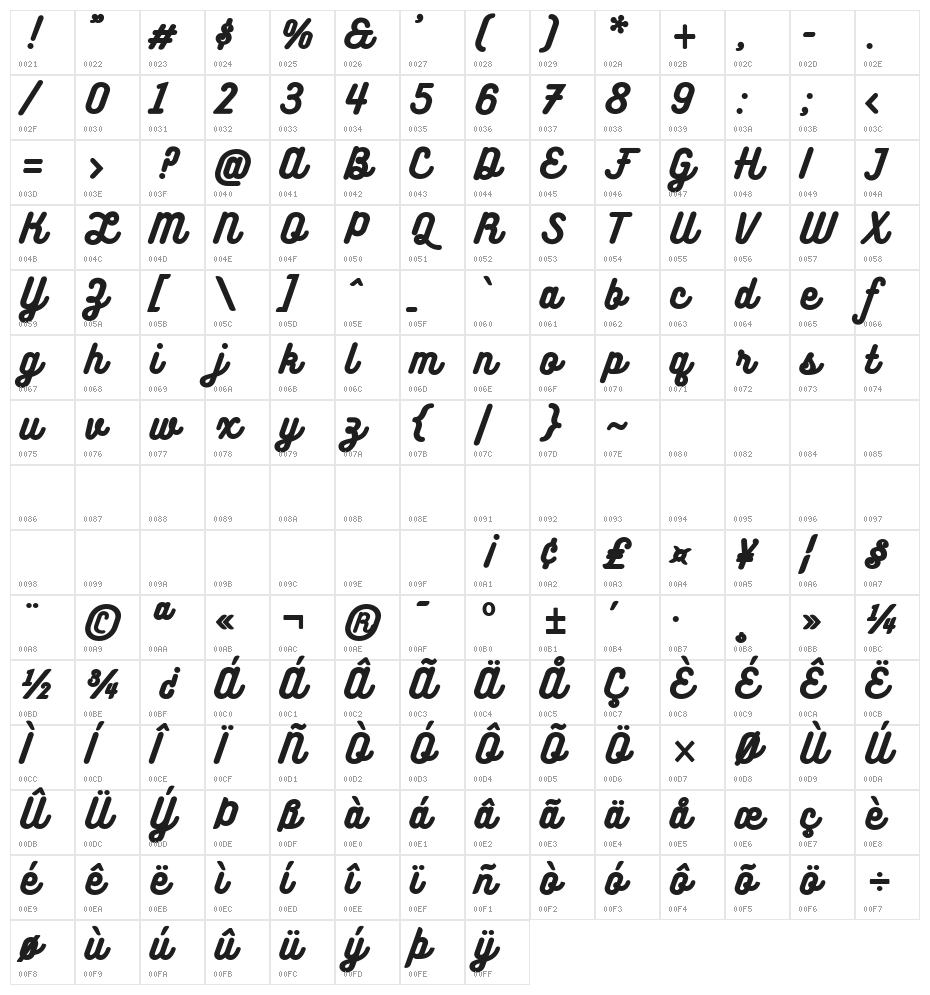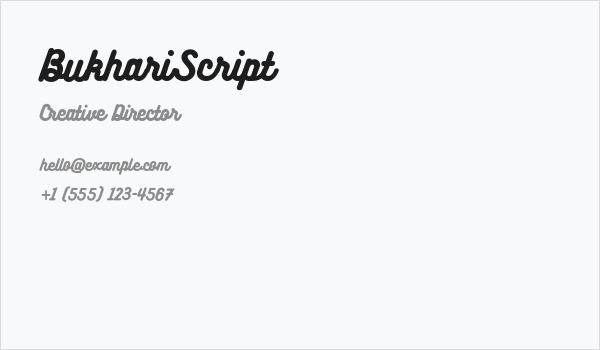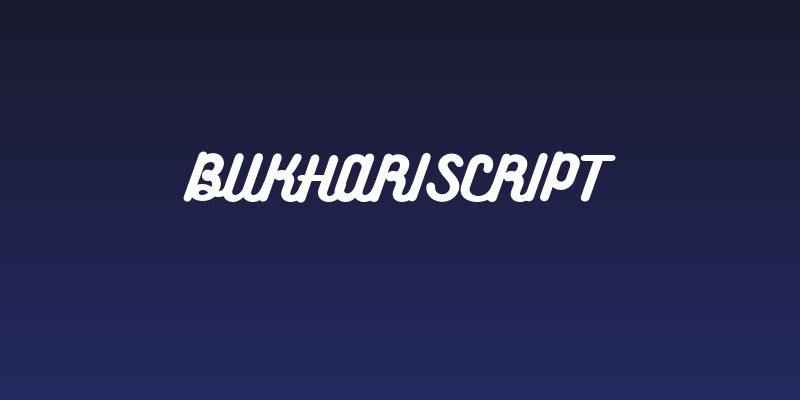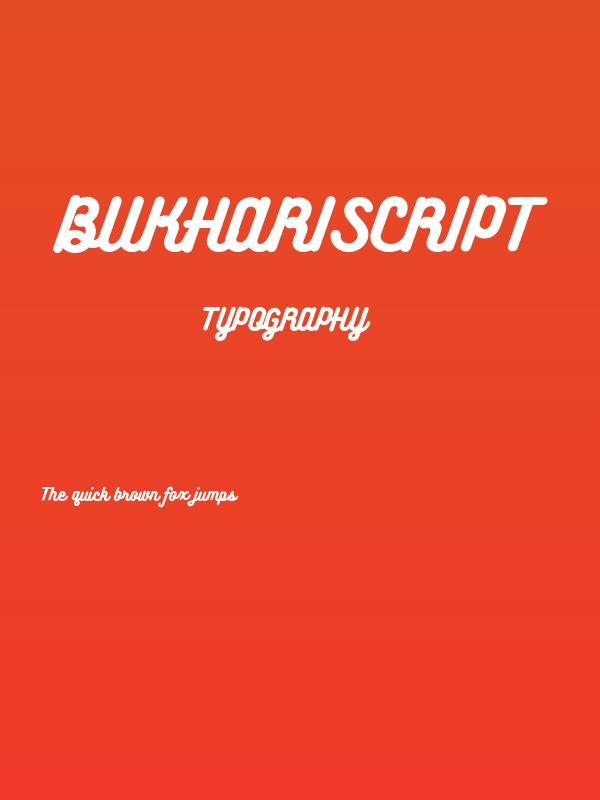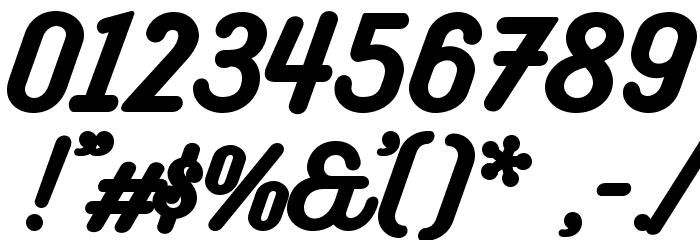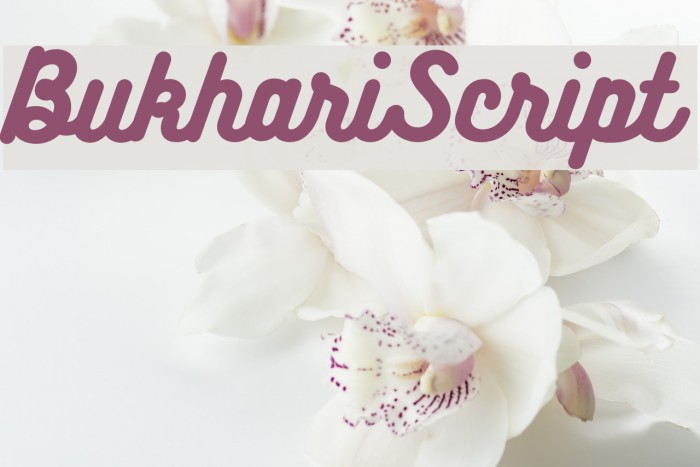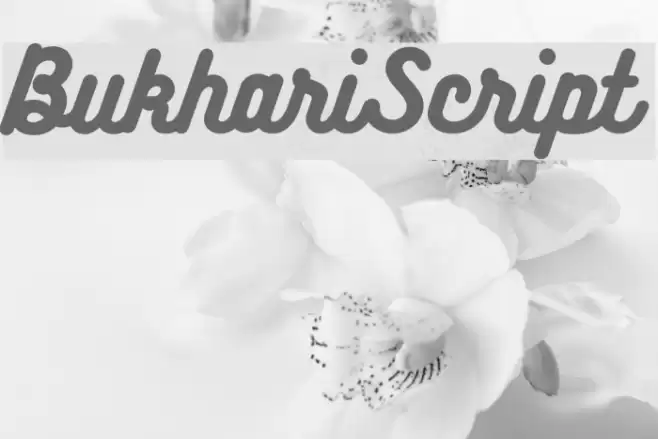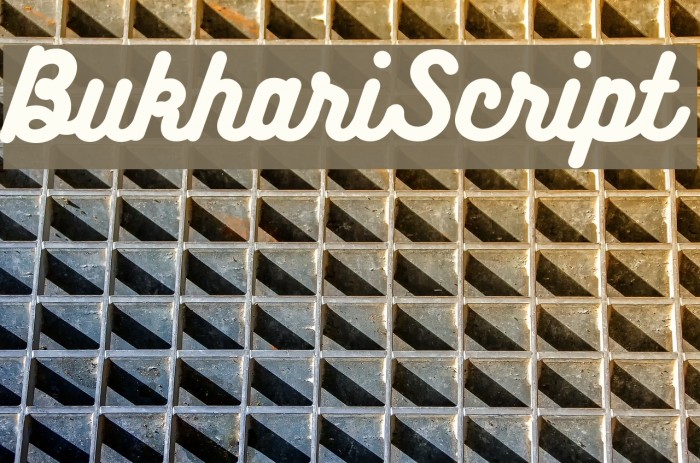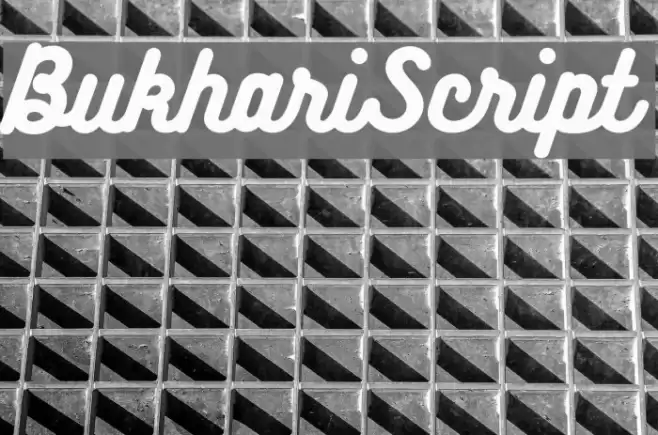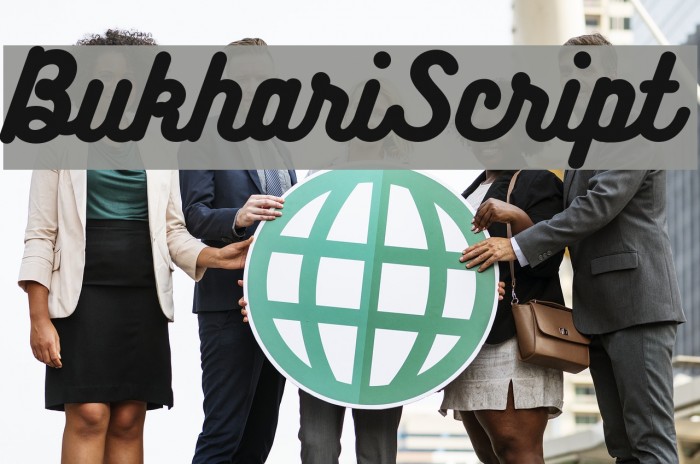
BukhariScript Font
BukhariScript Description
This font features a bold, flowing script style that exudes a sense of modern elegance and casual sophistication. The characters are interconnected, creating a seamless and fluid appearance that is both dynamic and visually appealing. The uppercase letters maintain a consistent height, while the lowercase letters exhibit a charming cursive flair. The numerals are bold and rounded, complementing the overall style. Special characters are integrated smoothly, maintaining the cohesive look of the font. Its bold weight and medium contrast make it suitable for eye-catching designs.